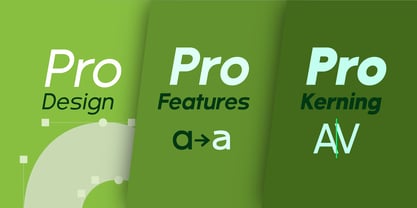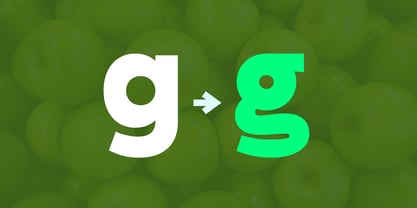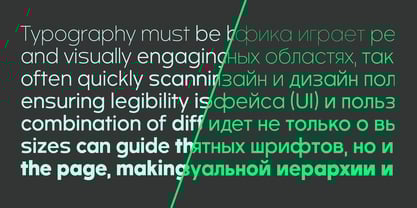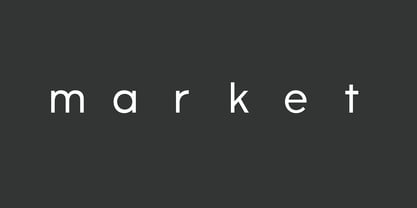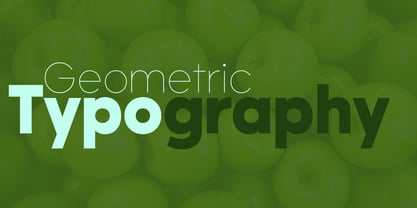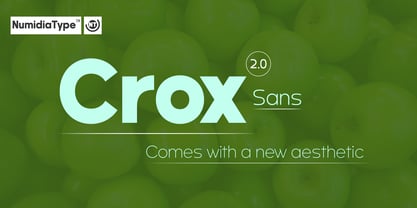
Crox
by NumidiaType
The Crox Font Family was designed by Yassine Abdi and published by NumidiaType. Crox contains 20 styles and family package options.
Crox™ 2.0 is a modern sans-serif typeface built on a foundation of pure geometric forms, circles, squares, and triangles, bringing together clarity, creativity, and artistic structure in a professional design. Completely redesigned in its second major release, Crox™ 2.0 introduces a refined visual system with 10 weights and 20 styles, including new Oblique variants, and incorporates more than 25 advanced OpenType features such as comprehensive fraction support for both numerals and letters. Nearly all glyphs have been reworked to enhance consistency and readability, while improved kerning scripts, reduced file sizes, and optimized font styles ensure smooth performance across print and digital environments. With extensive Western language support, scripting for derived units, and enhanced technical features, Crox™ 2.0 offers greater adaptability for UI/UX design, web interfaces, branding, advertising, product design, and more. Combining professional precision with geometric artistry, New version stands as a versatile and fully modernized typeface solution.
Designers: Yassine Abdi
Publisher: NumidiaType
Foundry: NumidiaType
Design Owner: NumidiaType